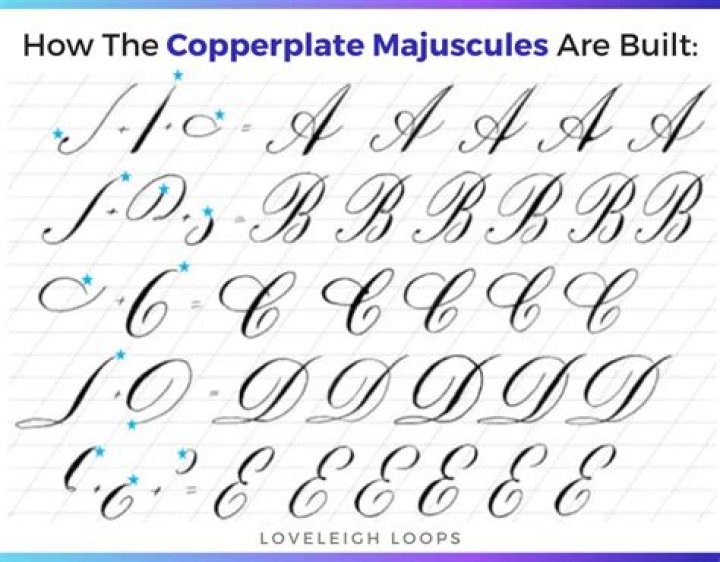
What font goes well with Copperplate gothic?
Or combine narrow with wide—a good font pairing for Copperplate is something thinner like Helvetica Condensed.
What is Copperplate used for?
Although often used as an umbrella term for various forms of pointed pen calligraphy, Copperplate most accurately refers to script styles represented in copybooks created using the Intaglio printmaking method.
Is copperplate a good font?
Copperplate is like a sans-serif typeface – its maker even called it Gothic – with serifs. When used on a letterpress, Copperplate leaves a satisfyingly clean impression on soft, heavy card stock. It’s ideal for stationery, for lettering etched onto glass and, as you might expect, for copper plate signs.
What font does Who Wants to Be a Millionaire use?
Copperplate Gothic is a typeface designed by Frederic W.
What are gothic fonts used for?
Gothic fonts are unusually attractive, which makes them a popular choice in branding and design projects. They typically belong in the sans-serif category and derive inspiration from the Gothic era. Gothic fonts are akin to Gothic architecture and are best-suited for vintage or retro designs.
Is Copperplate a good font?
How do you write in Copperplate handwriting?
Writing rules and basic strokes The general rule of Copperplate is to write the upstrokes thin (without pressing the pen) and the downstrokes thick (pressing the pen).
What is Copperplate Gothic font?
We are pleased that we are going to introduce you to the design of Frederic W. Goudy known as the Copperplate Gothic Font. This typeface was released in 1901 under the banner of American Type Founders.
What is the name of the Gothic font?
Copperplate Gothic Font. Copperplate Gothic is a typeface designed through Frederic W. Goudy and launched with the aid of American Type Founders (ATF) in 1901. While termed a “Gothic”, the face has small glyphic serifs that act to emphasize the blunt terminus of vertical and horizontal strokes.